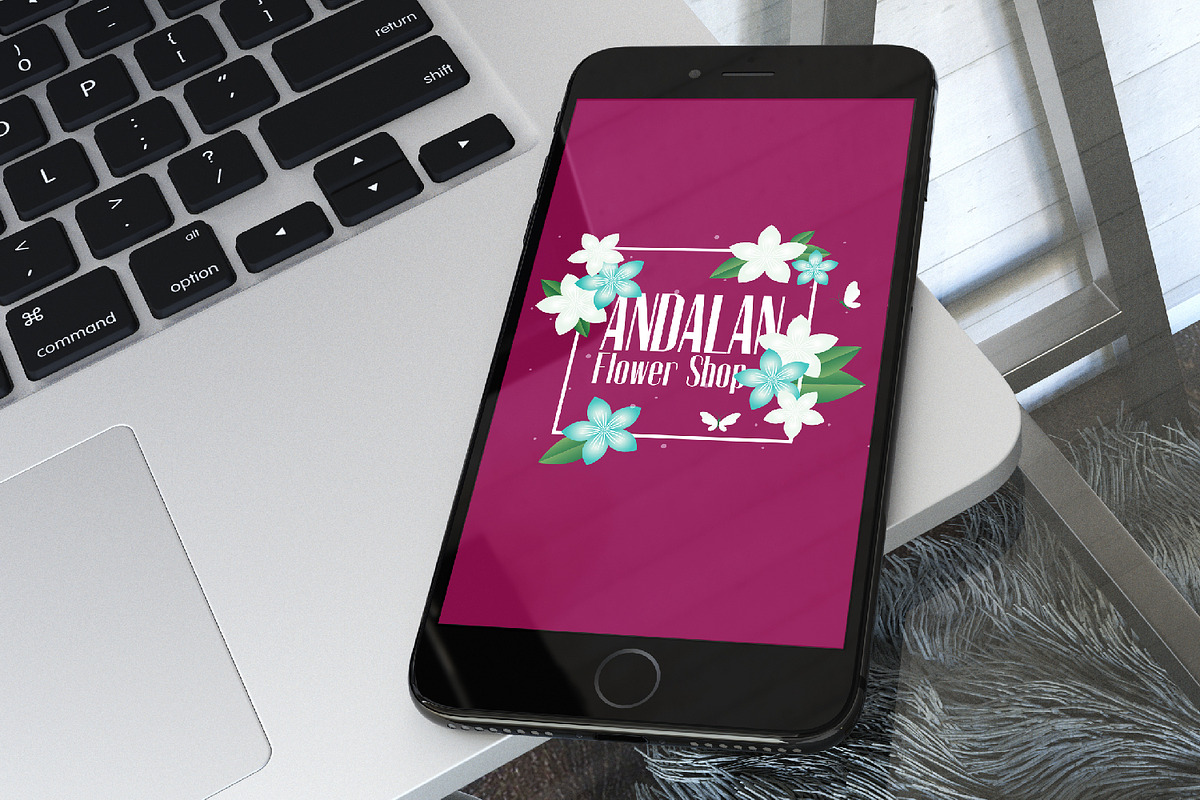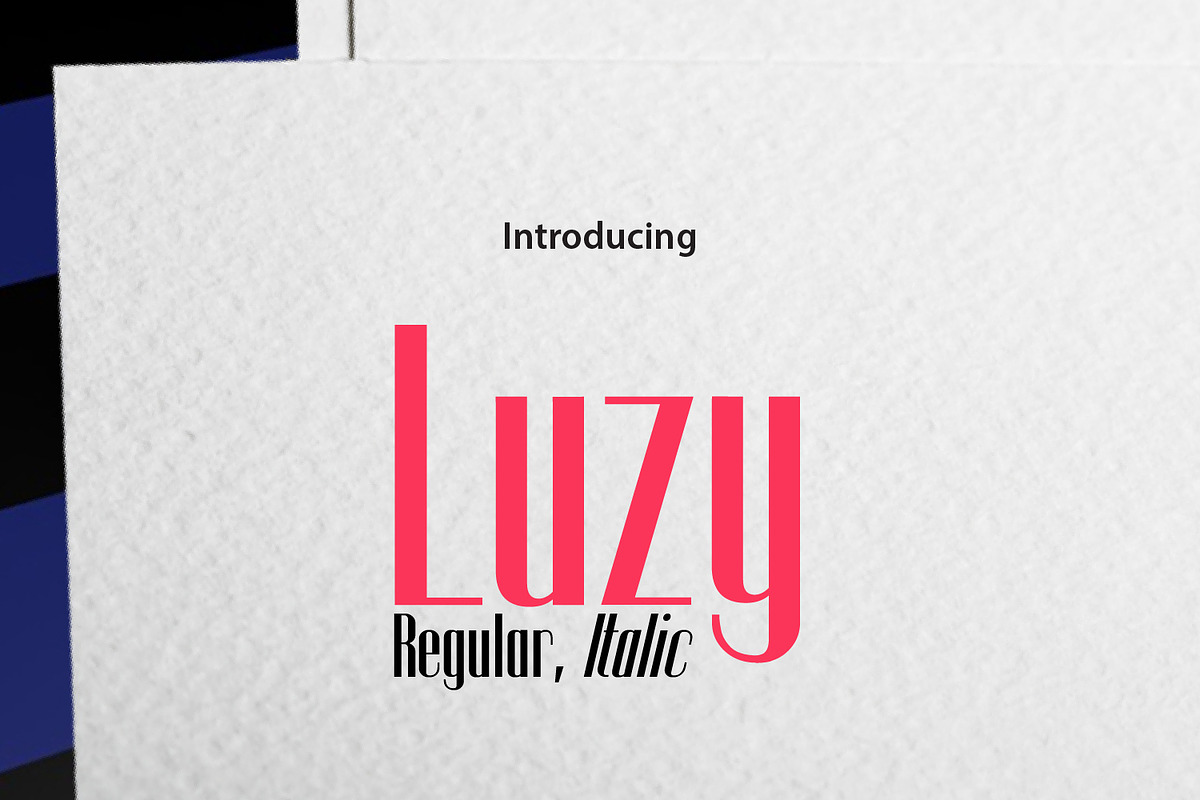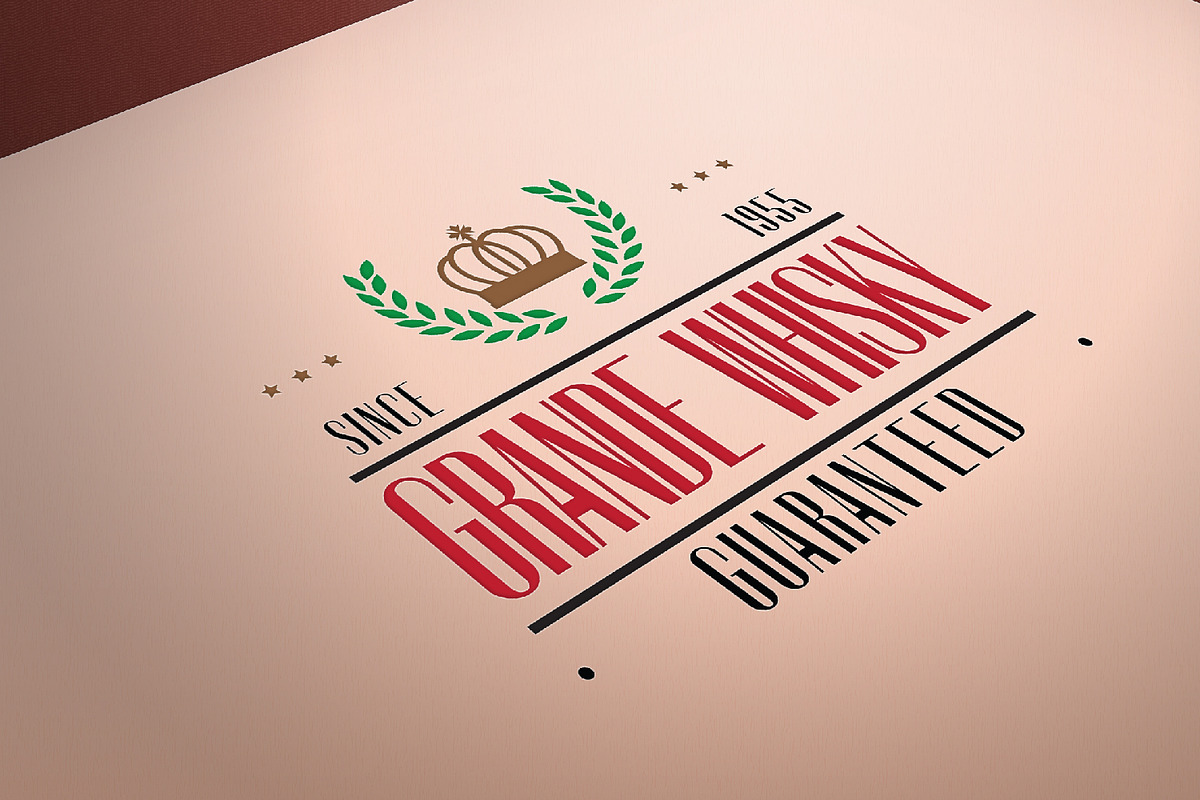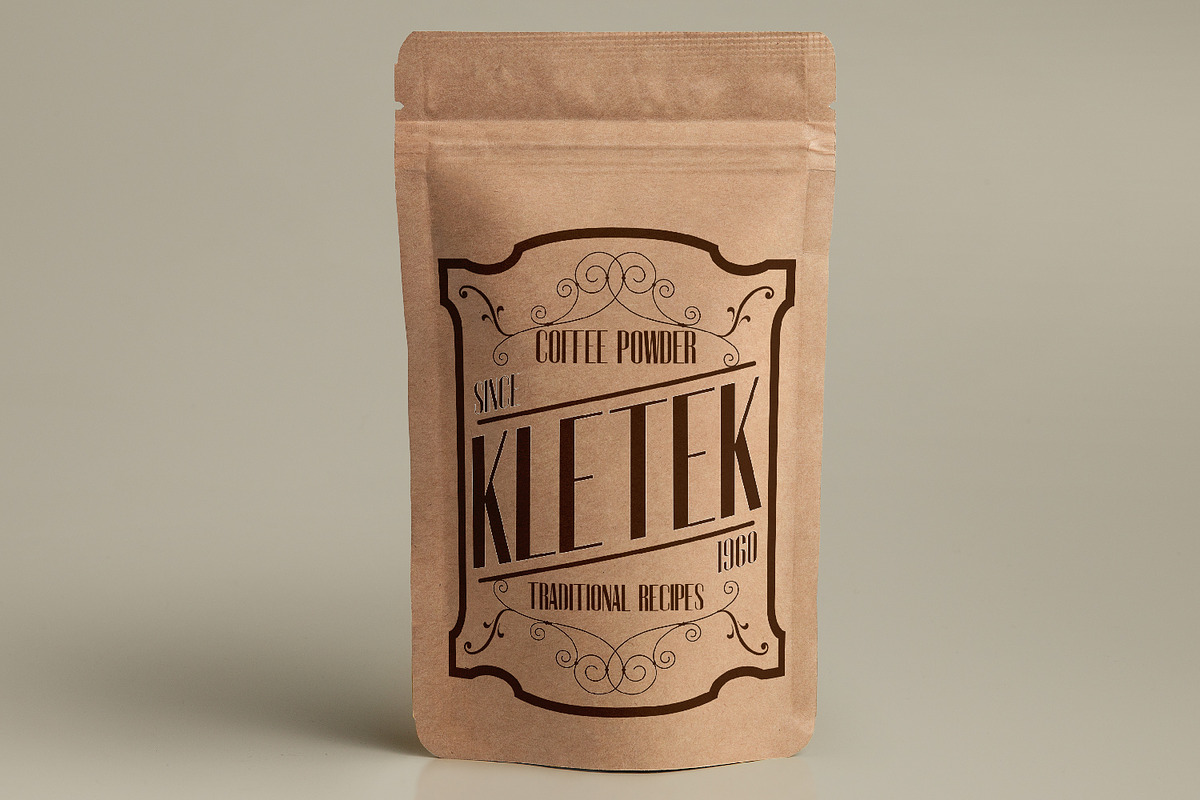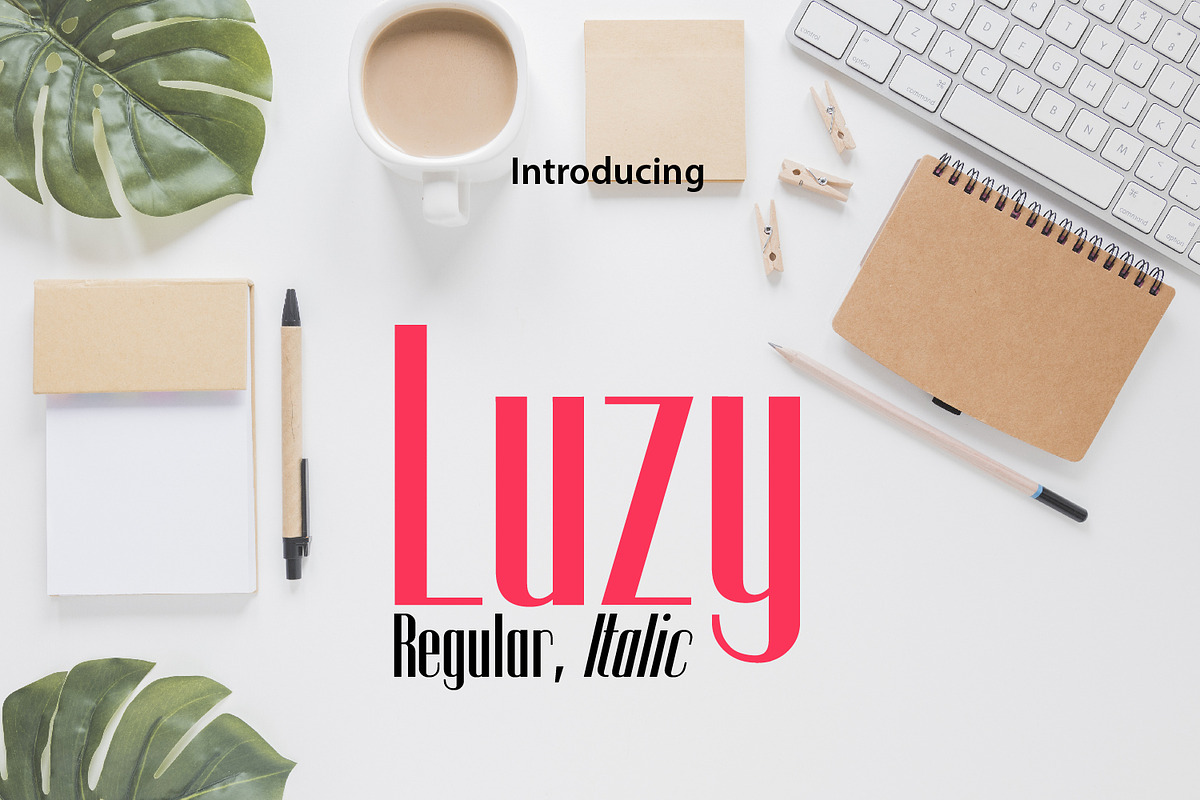
Luzy
Luzy Typeface is a font inspired by Magazine titles. It’s great for having a attractive title followed by smaller text. It was made specifically with magazines and posters in mind. It includes: Regular, Italic